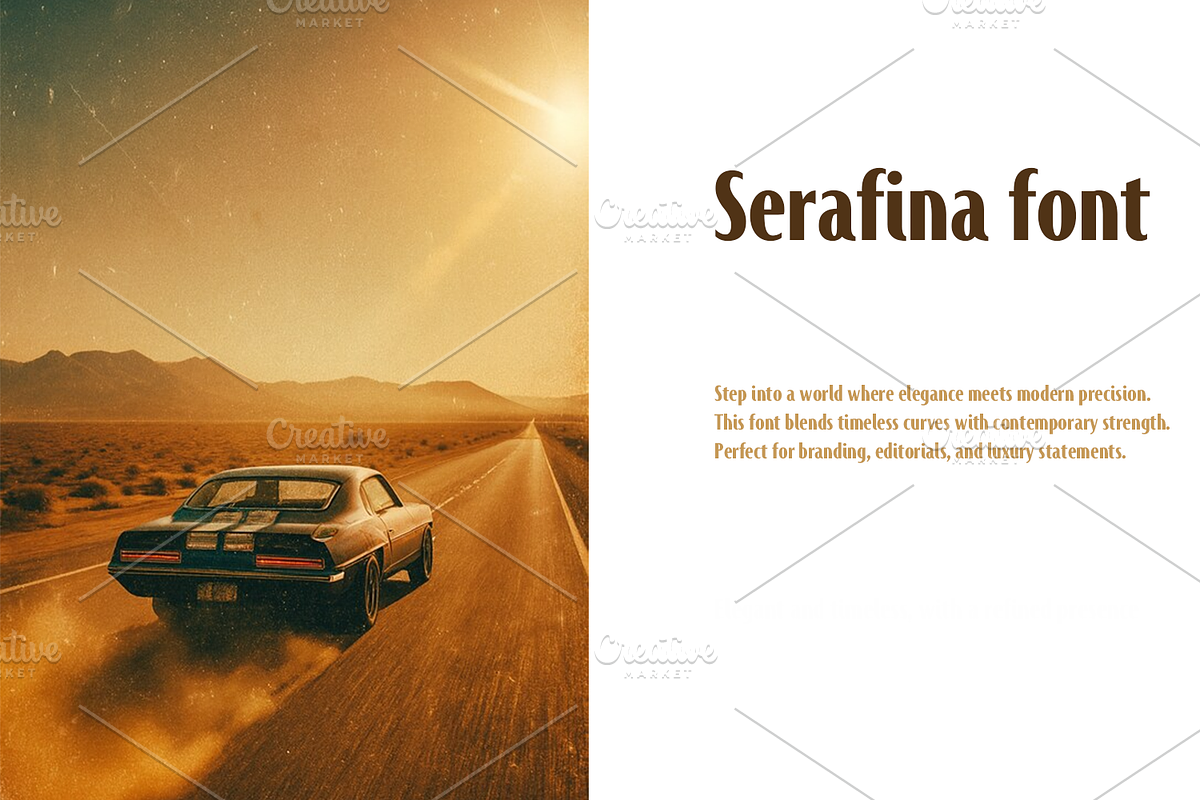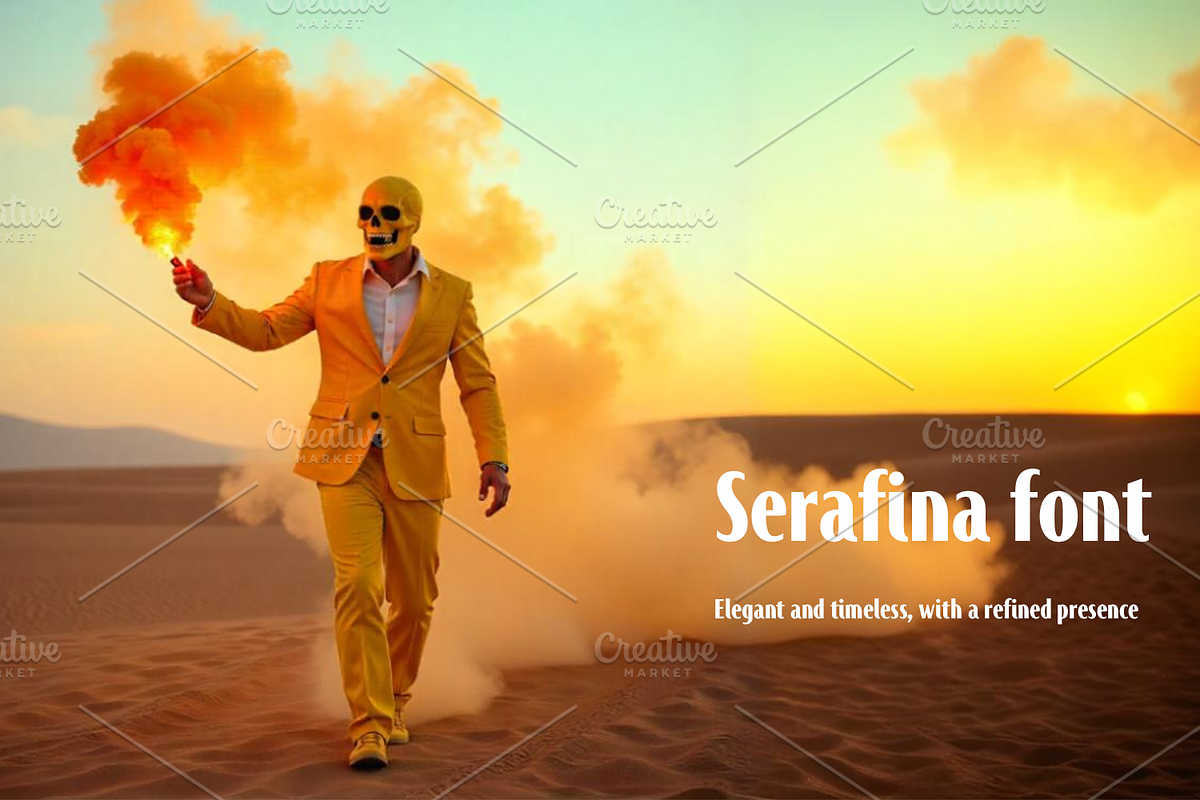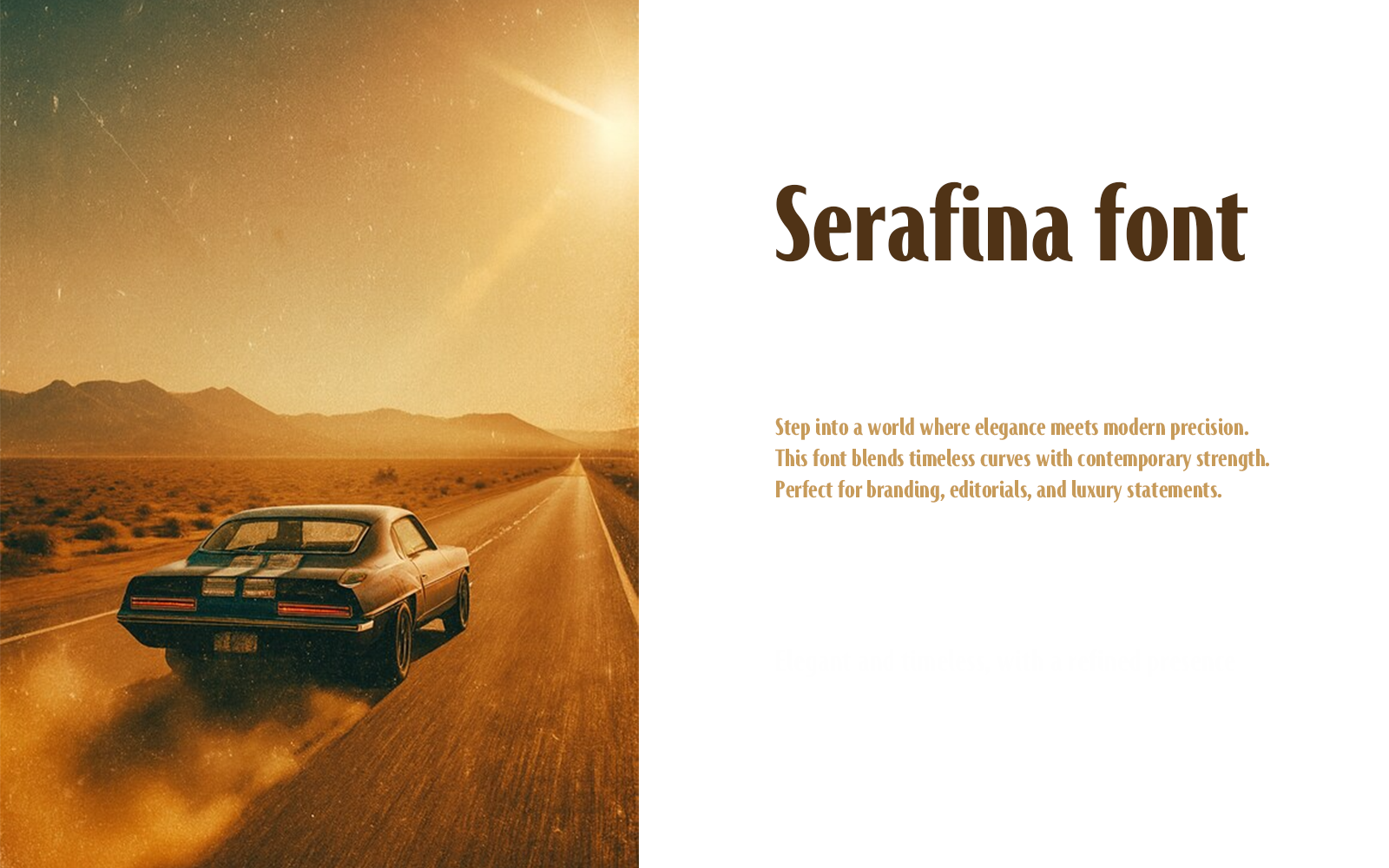
Step into a world where elegance meets modern precision.
This font blends timeless curves with contemporary strength.
Perfect for branding, editorials, and luxury statements.
Every letter speaks with sophistication and subtle power.
Choose a typeface that elevates your words into art.